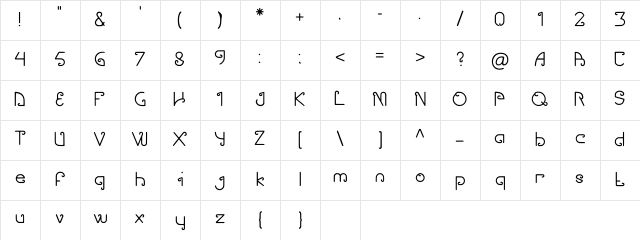
Sawung Regular
Design Context for Sawung Typeface
Sawung takes a measured approach to typography — its balanced proportions and neutral character make it a reliable workhorse for both digital and print work.